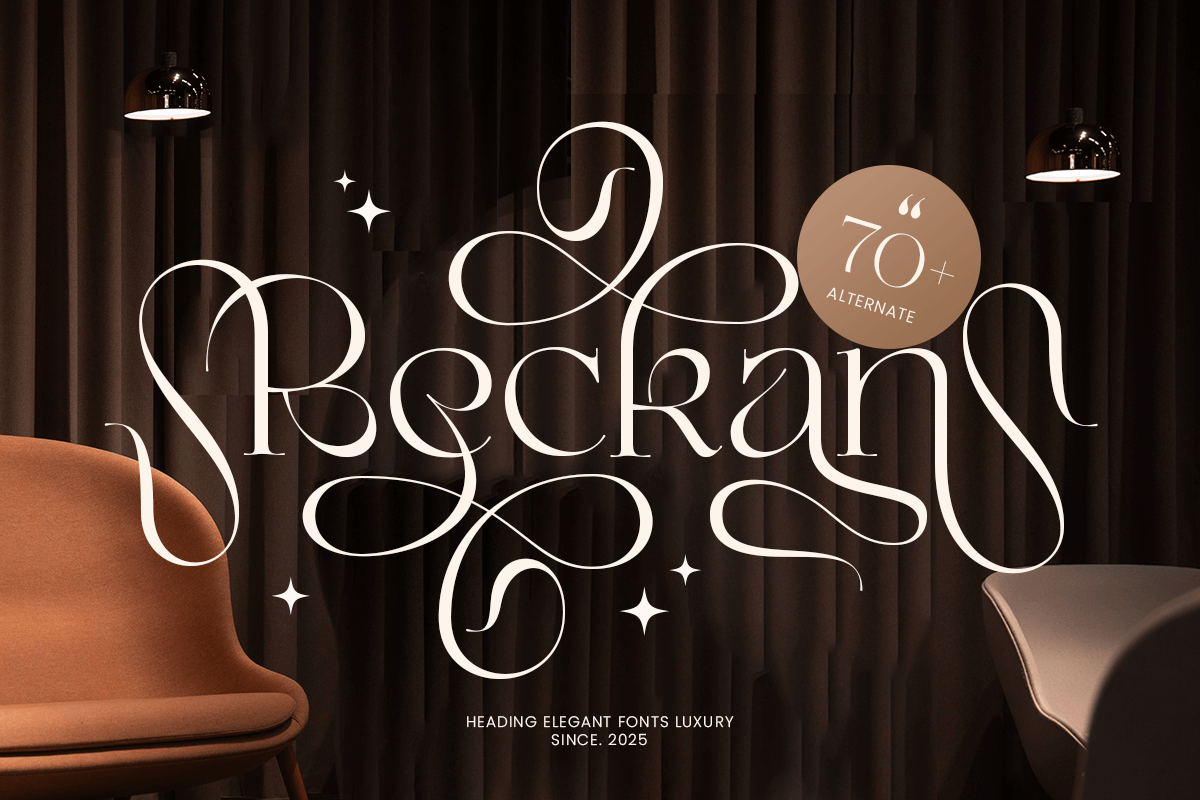
Beckan
-Heading Unique Serif Font
Beckan - Heading Unique Serif Font
Beckan is a heading modern font that exudes classy and sophistication. Designed for unique headings, high-end branding, and upscale editorial work, Beckan offers a refined serif style that commands attention with its graceful curves and stylish appeal.
Whether you’re designing for high-end fashion brands, exclusive event invitations, or classy product packaging, Beckan brings a touch of classy to every project. Its beautifully crafted letterforms make it perfect for making an impression in any design that calls for an upscale, classy feel.
Beckan – Heading Classy Font Features
• Classy serif letterforms designed for headings and titles
• Perfect for classy branding, high-end logos, and editorial design
• Sophisticated, high-end design with timeless appeal
• OpenType features for advanced typographic styling